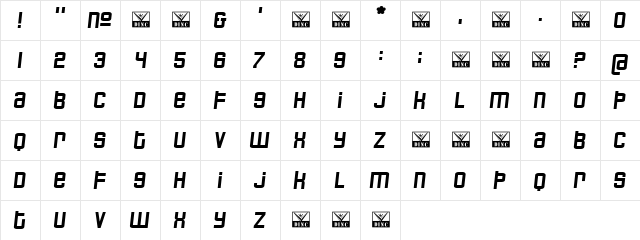
Tjinder Regular
Design Context for Tjinder Typeface
Tjinder is a composed and adaptable typeface that performs quietly and consistently across a wide range of design contexts.